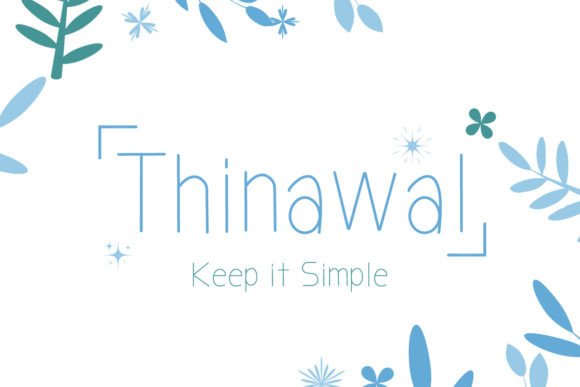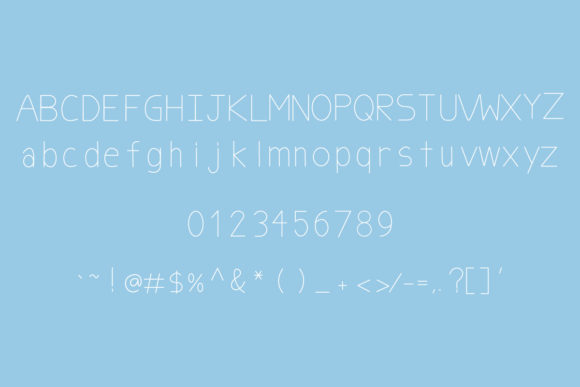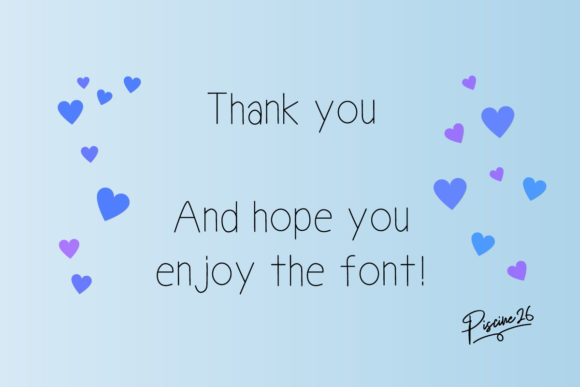
Thinawal Font
About Thinawal Font
Thinawal, with its thin and simple handwritten design, emerges as a font that not only embodies simplicity but also exudes a charming cuteness. Tailored to evoke a playful and lively feel, Thinawal proves to be an ideal choice for projects related to kids, infusing a delightful and whimsical touch into your creative endeavors.
The thin strokes of Thinawal contribute to its overall simplicity, creating a clean and uncluttered aesthetic that is well-suited for various applications. Its handwritten charm adds a personal and endearing quality, making it perfect for crafting items that are not only visually appealing but also carry a heartwarming touch.
Thinawal becomes a delightful tool for unleashing creativity, allowing you to make cute items that align with your artistic vision. Whether you’re designing playful artwork, creating adorable gifts for your beloved ones, or working on projects for children, Thinawal serves as a versatile font that elevates the liveliness of your work.
Imagine this font gracing a children’s book, where each word becomes a visual treat, capturing the attention of young readers with its cute and whimsical appearance. Thinawal seamlessly adapts to various mediums, making it suitable for worksheets, playful graphics, and any creative work aimed at a youthful audience.
The cute and lively essence of Thinawal extends beyond its visual appeal—it becomes a conduit for expressing joy and creativity. Let this font inspire your imagination as you embark on projects that celebrate the innocence and playfulness of childhood. Thinawal transforms your creative space into a canvas where cute ideas come to life, making it an excellent choice for infusing charm into your designs.